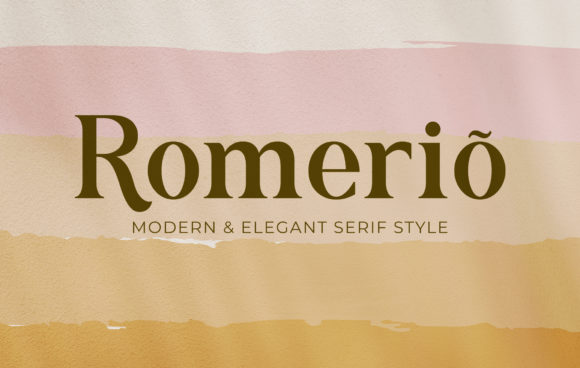
Romerio Font
Unleash the timeless elegance of Romerio, a captivating serif font that breathes life into your designs. Its classic charm effortlessly adds a touch of sophistication to any project, leaving a lasting impression that resonates with your audience. Romerio's single weight design exudes a sense of unity and harmony, making it the perfect choice for creating cohesive and visually stunning designs.
Immerse yourself in the beauty of Romerio's carefully crafted letterforms, each meticulously designed to embody grace and precision. The font's delicate serifs add an air of refinement, while its flowing curves create a sense of fluidity and movement. Whether you're crafting elegant invitations, designing eye-catching logos, or creating captivating marketing materials, Romerio promises to elevate your work to new heights.
Step into a world of creative possibilities with Romerio. Its versatility knows no bounds, making it an indispensable tool for designers of all levels. Experiment with different design combinations, explore unique layouts, and let your imagination run wild. Romerio's adaptability ensures that it complements various design styles, from classic and traditional to modern and contemporary.
With Romerio at your fingertips, you'll discover a font that speaks to the heart. Its classic feel evokes a sense of nostalgia and warmth, inviting your audience to connect with your designs on a deeper level. Create designs that resonate with your target audience, leaving a lasting impression that sets you apart from the competition.
Romerio is more than just a font; it's an investment in your creative journey. Its timeless beauty ensures that your designs will stand the test of time, remaining relevant and impactful for years to come. Embrace the power of Romerio and unlock a world of creative possibilities. Transform your designs into masterpieces that captivate and inspire.